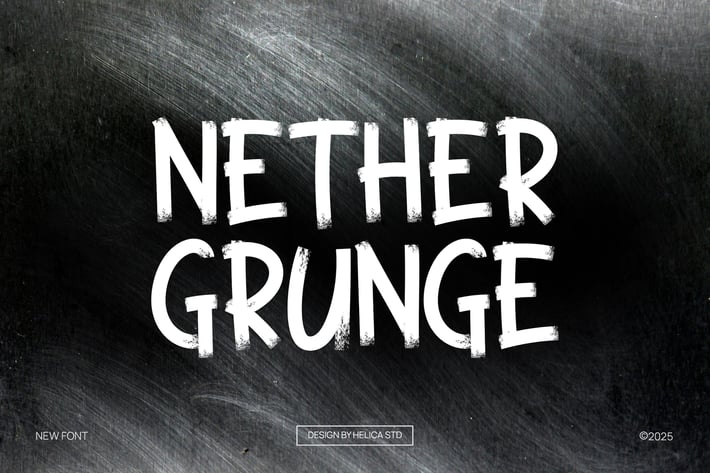
Nether Grunge Display Font
Nether Grunge Display: distressed display font features a rough, textured look, ideal for projects seeking a raw, edgy aesthetic. Perfect for music posters, streetwear brands, and more